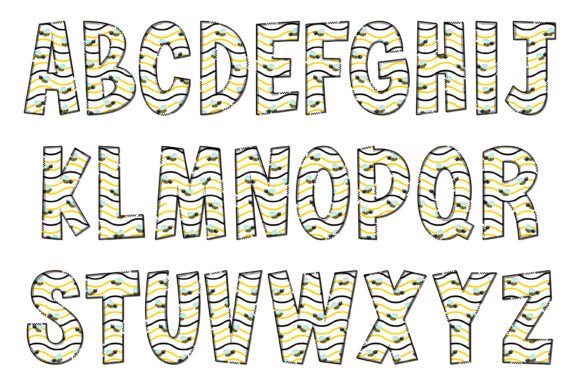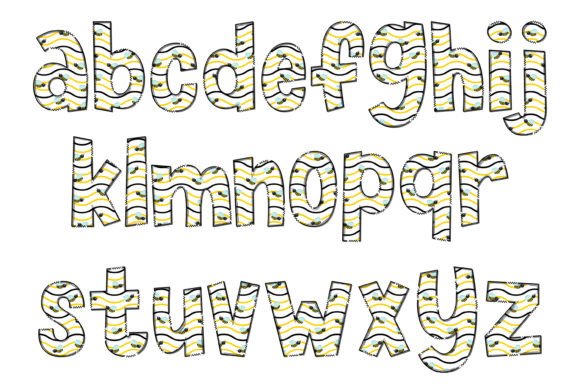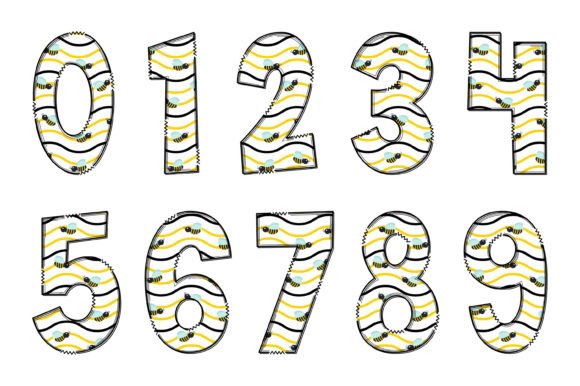
The Sweet Spot: How Flying Bee Font Can Elevate Your Designs
I still remember the time I was working on a children’s book project, and I just couldn’t find the right font to bring the story to life. The text needed to be playful, yet readable; fun, yet not too distracting. That’s when I stumbled upon the Flying Bee font, and it was love at first sight! ✨
With its whimsical and artistic feel, Flying Bee font is perfect for designs that require a touch of playfulness. In this article, I’ll share my honest review of this beautiful font, provide a practical guide on how to use it, and explore similar fonts that you might enjoy.
Honest Review: What I Love (and a Few Quirks)
The Good: ✨
- ✅ Playful and Artistic Feel: Flying Bee font has a unique, hand-drawn quality that adds a touch of whimsy to any design.
- ✅ Easy to Read: Despite its playful nature, the font is surprisingly easy to read, making it perfect for body text in children’s books, posters, and more.
- ✅ Color Font Capability: As an Opentype-SVG font, Flying Bee can be used in programs like PhotoShop, Illustrator, Silhouette, and Inkscape, allowing for stunning color effects.
The Not-So-Good: 🤔
- ⚠️ Steep Learning Curve for Advanced Features: While the font is easy to use, mastering its advanced features, such as OpenType and glyphs, may require some time and practice.
The Story Behind Flying Bee Font
While the origins of Flying Bee font are unclear, it’s likely that the designer was inspired by the whimsical world of children’s books and illustrations. The font’s playful, hand-drawn quality makes it perfect for bringing stories to life.
| Font Name | Flying Bee Font |
| Author | Imagination Switch |